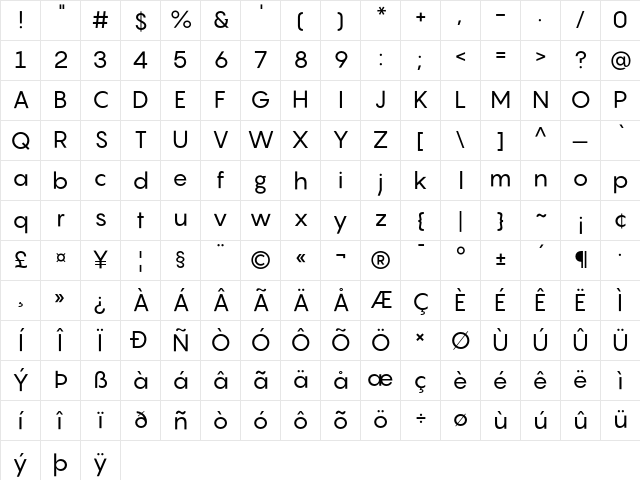
Pangram Regular
Foundry: Pangram Pangram
Designer: Mathieu Desjardins
Design Context for Pangram
Pangram is a composed and adaptable typeface that performs quietly and consistently across a wide range of design contexts.